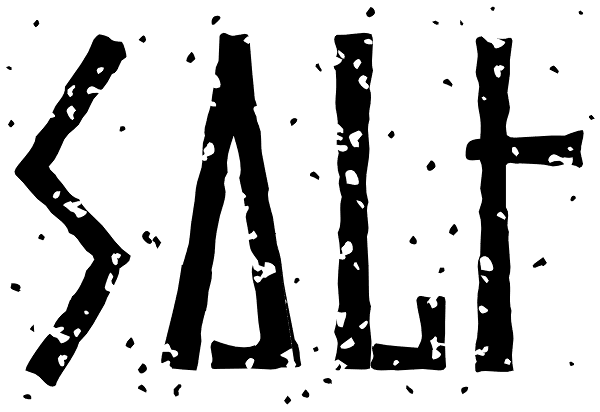
Salt
Salt was first conceived as an authentic alphabet of runes, but that was far too serious so it ended up as a lesser spotted version of Pepper.
Salt Font